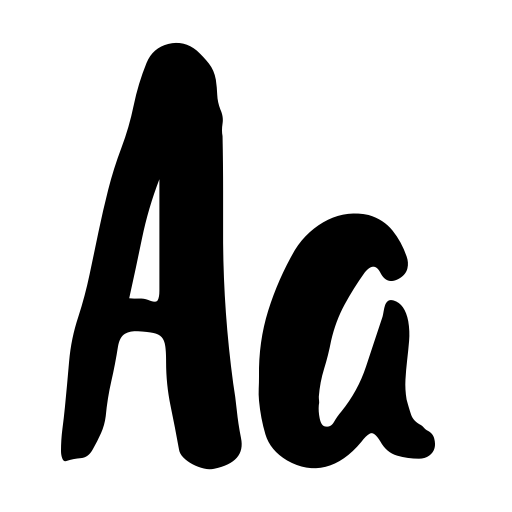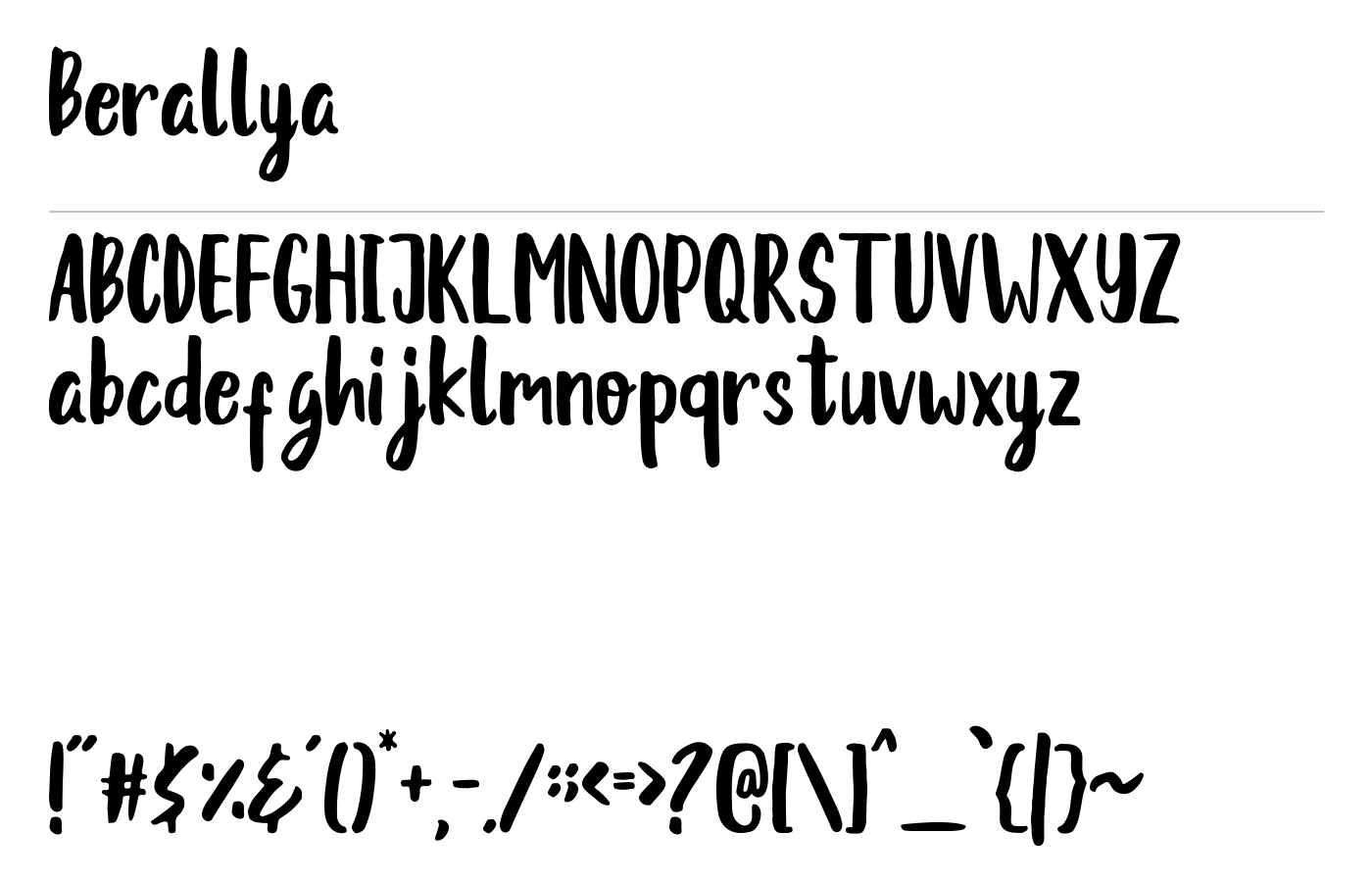
Berallya is a playful, hand-drawn sans serif font featuring a bold, slightly condensed weight with a casual, brush-script feel. Its lively, irregular strokes and friendly shapes make it ideal for creative projects that want a personal, approachable vibe, such as logos, headings, packaging, and informal editorial designs. This font works well where a fun and unique touch is needed to bring warmth and character to the text.
Berallya Font
About Berallya Font